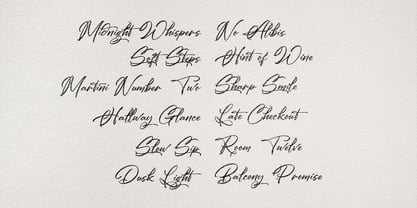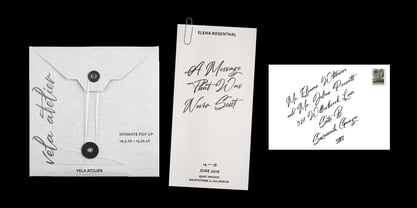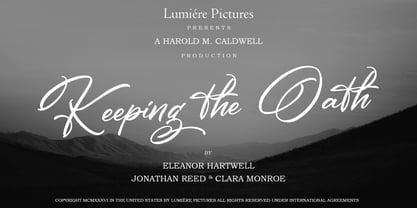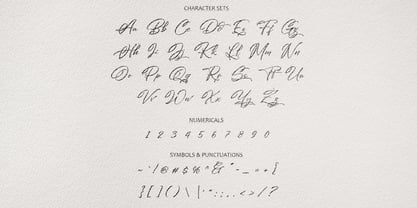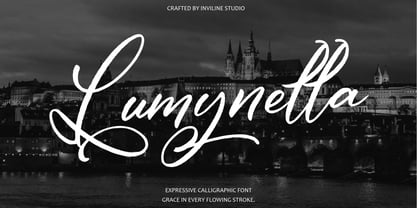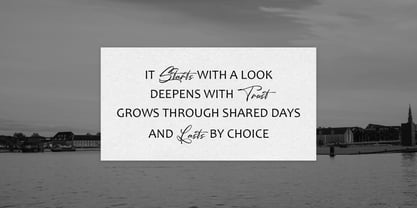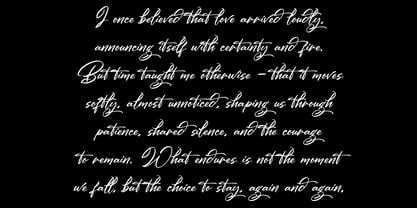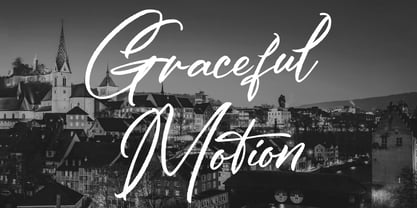
Lumynella Calligraph
von Inviline
Die Schriftfamilie Lumynella Calligraph wurde von Virgiawan Listanto entworfen und von Inviline veröffentlicht. Lumynella Calligraph enthält 1 Stile. Mehr über diese Familie
Roselune Scriptoria is an expressive script font that seamlessly blends elegance and charm with handcrafted fluidity. This versatile typeface is perfectly suited for a variety of applications, including branding, wedding invitations, social media quotes, and editorial designs. Its graceful rhythm and smooth curves elevate your typography, ensuring that each letter flows with poetic movement. Ideal for capturing heartfelt messages and creating luxurious aesthetics, this font is a standout choice for any creative project.
Designer: Virgiawan Listanto
Foundry: Inviline